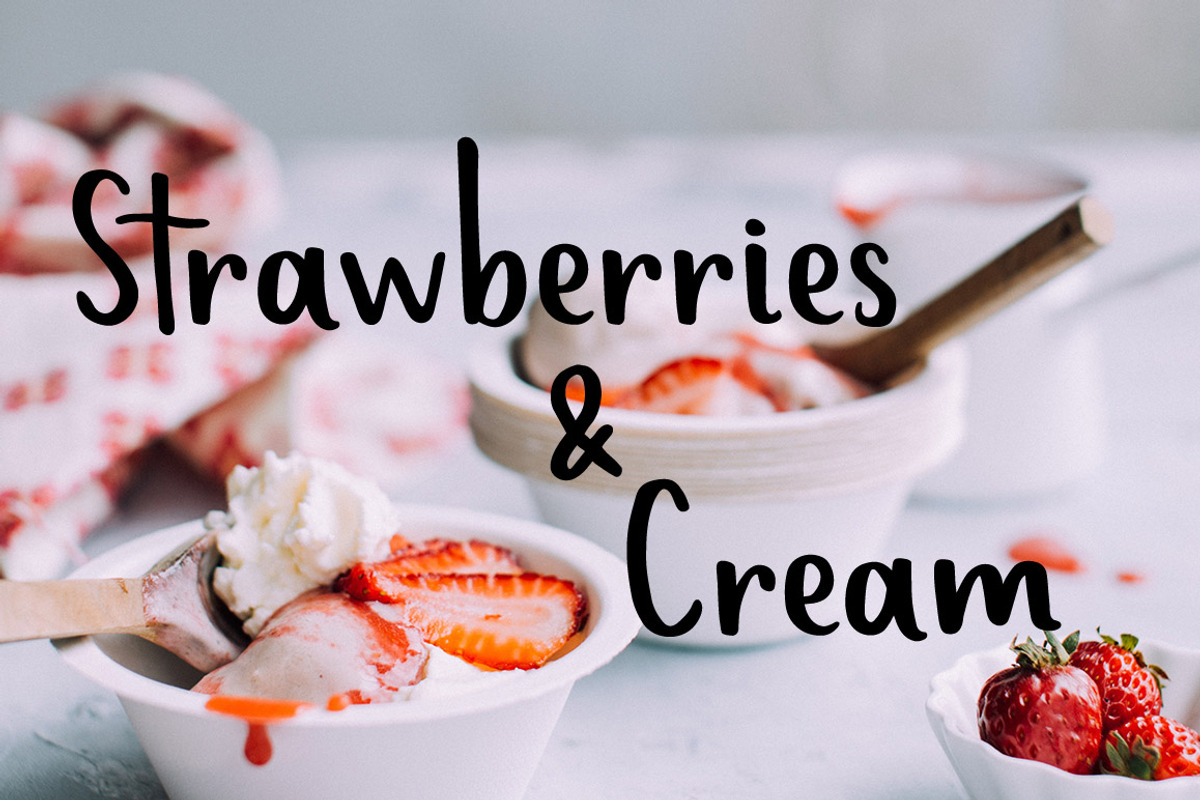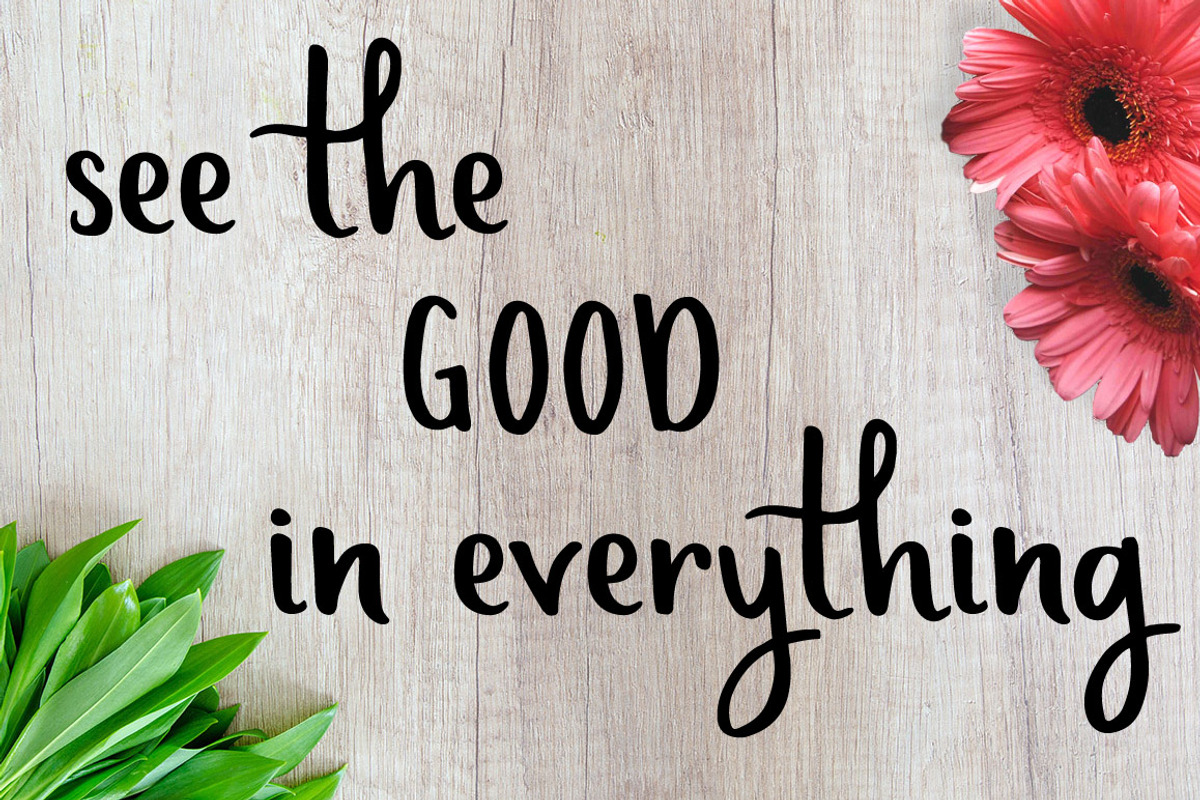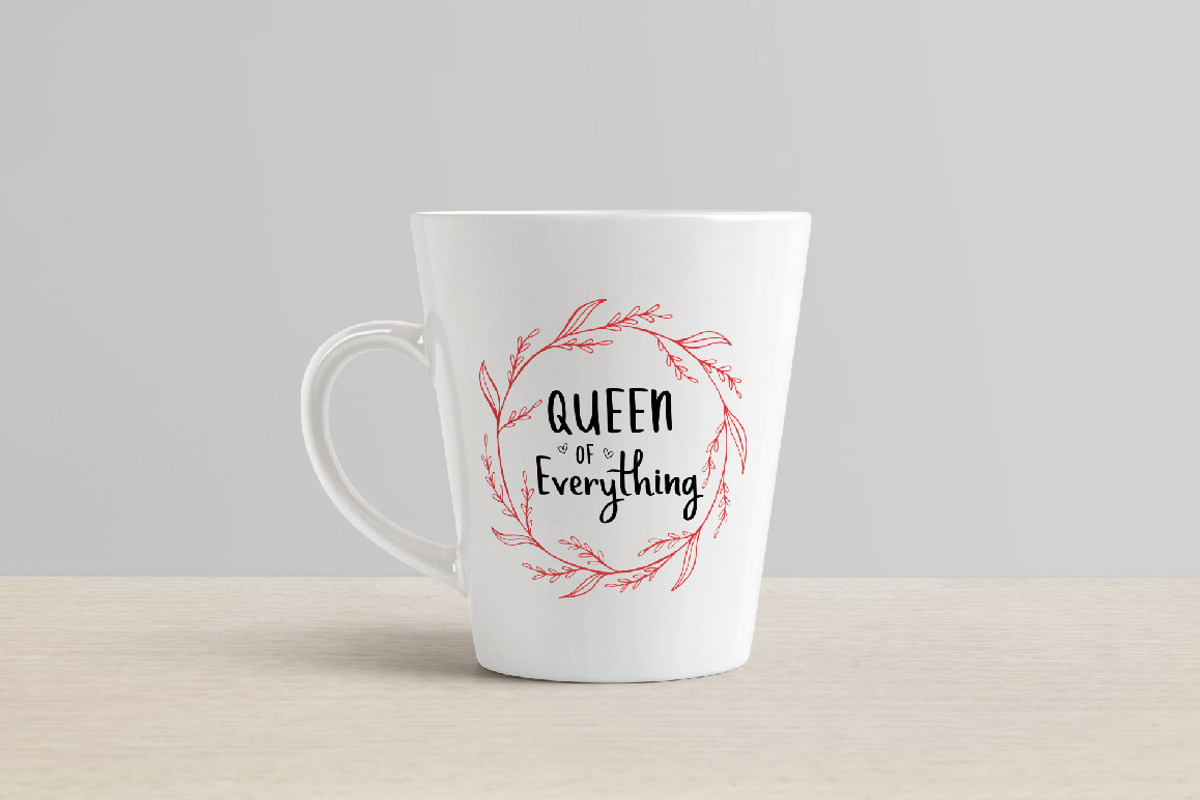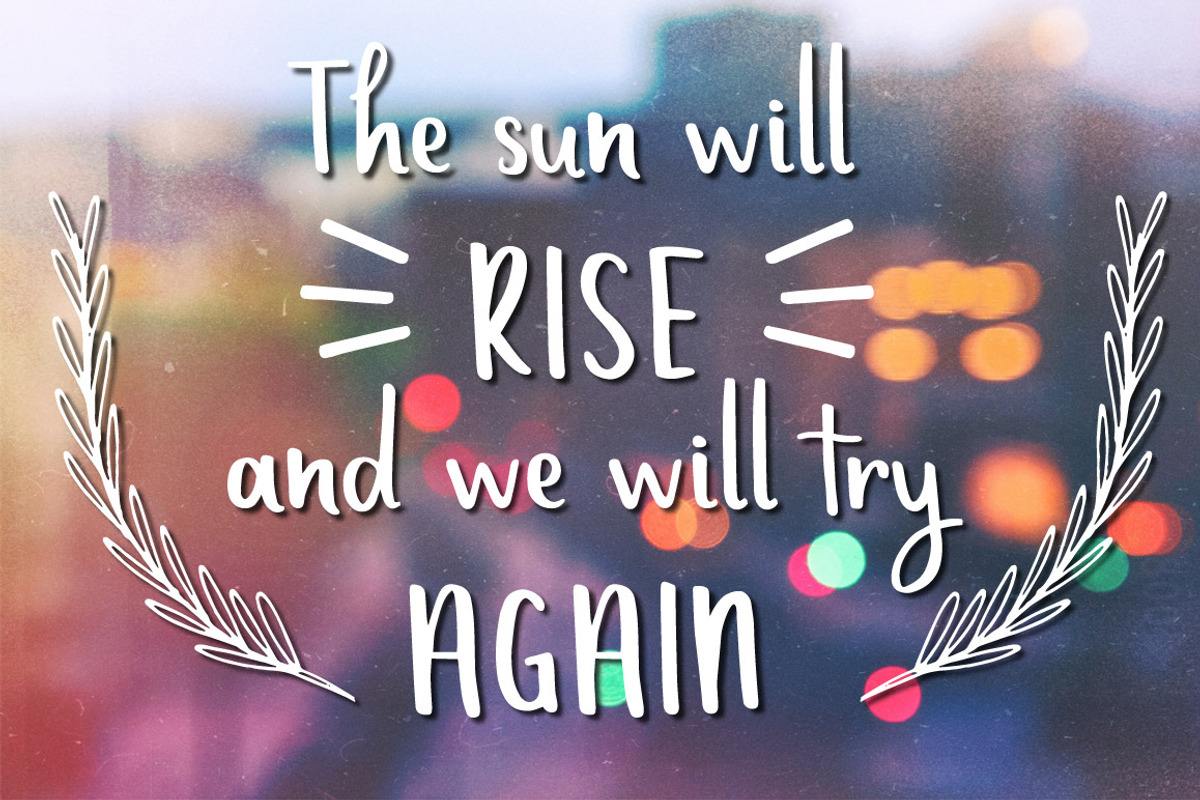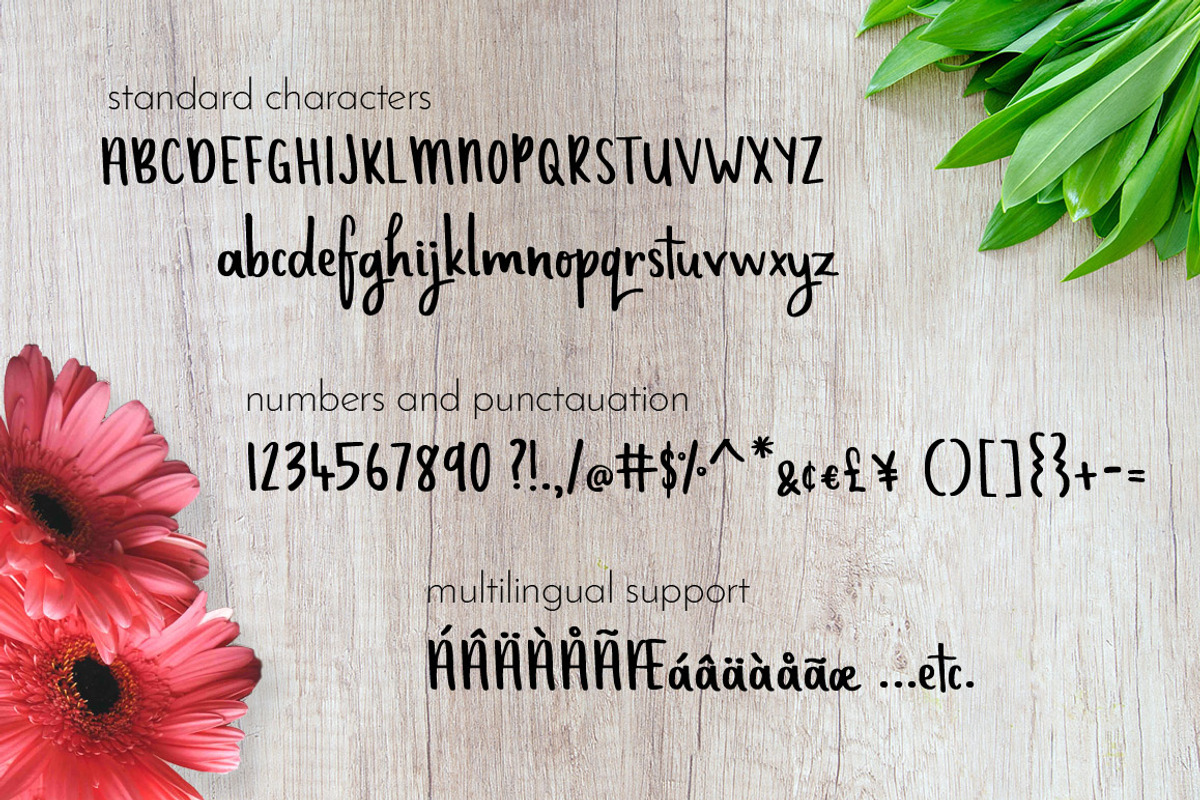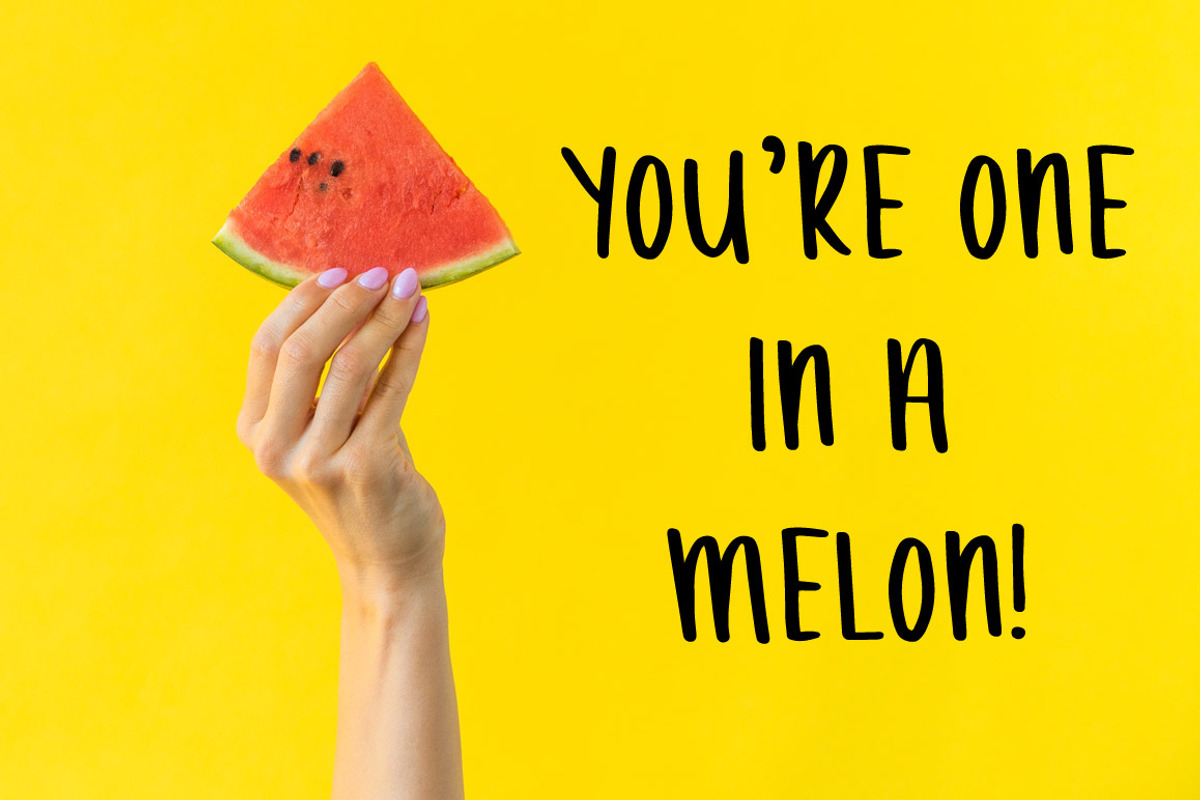
Sugarcoated - Handwritten Font
Introducing Sugarcoated - a fresh, fruity, sweet new typeface to give your projects that hand written feel. Designed to reflect the bounce and inconsistent nature of hand writing, the Sugarcoated font is perfect for cards, invitations, branding, stationery design, prints, packaging, recipes and more!
Contains multilingual support for European users. Please test the font in the font previewer to check that it includes the characters you may require.